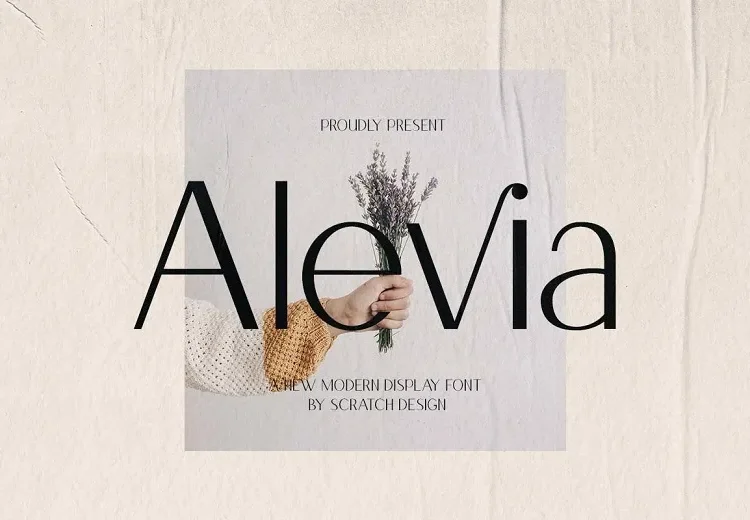
Alevia Font
Alevia is a fresh and contemporary display font that embodies simplicity with a refined touch. Its mature and classy design makes it an excellent choice for a wide range of stylish and elegant projects. Whether you’re looking to enhance your branding, create sophisticated packaging, or design eye-catching logos, Alevia provides the perfect balance of modernity and elegance.
Key Features of Alevia:
• Contemporary Design: Alevia’s clean and modern aesthetic ensures that your projects will look both fresh and sophisticated. Its sleek lines and balanced proportions make it suitable for a variety of applications.
• Versatile Usage: This font is designed to excel in diverse settings, from high-end branding and packaging to magazine layouts, social media graphics, and website headers. Alevia’s adaptability ensures that it will shine in both digital and print formats.
• Mature and Classy Style: Alevia exudes a mature and classy vibe, making it an ideal choice for projects that require a touch of elegance. Its polished appearance enhances the professionalism and visual appeal of your designs.
Ideal Applications:
• Branding: Elevate your brand’s identity with Alevia’s sleek and stylish design.
• Packaging: Make your product stand out with packaging that exudes class and contemporary appeal.
• Magazines and Editorials: Perfect for creating elegant and readable layouts in print media.
• Social Media and Web: Ensure your online presence is as polished as your brand with Alevia’s versatile design.